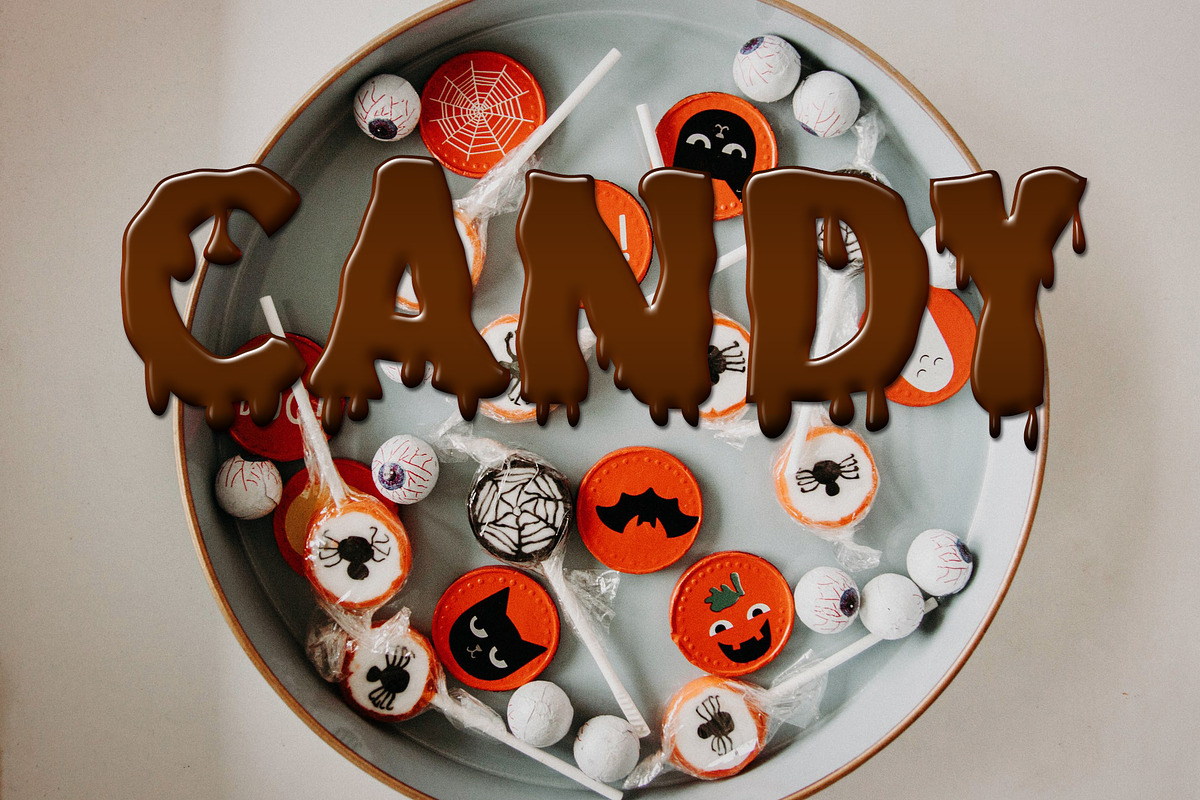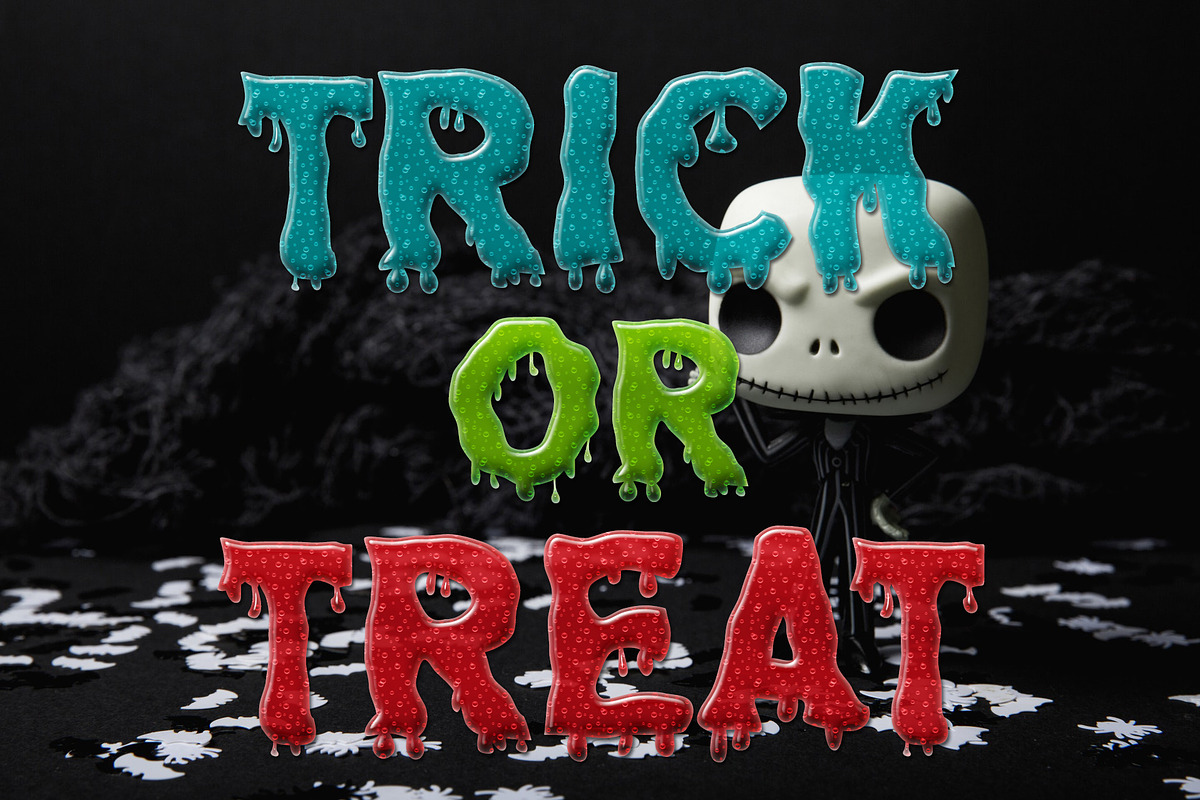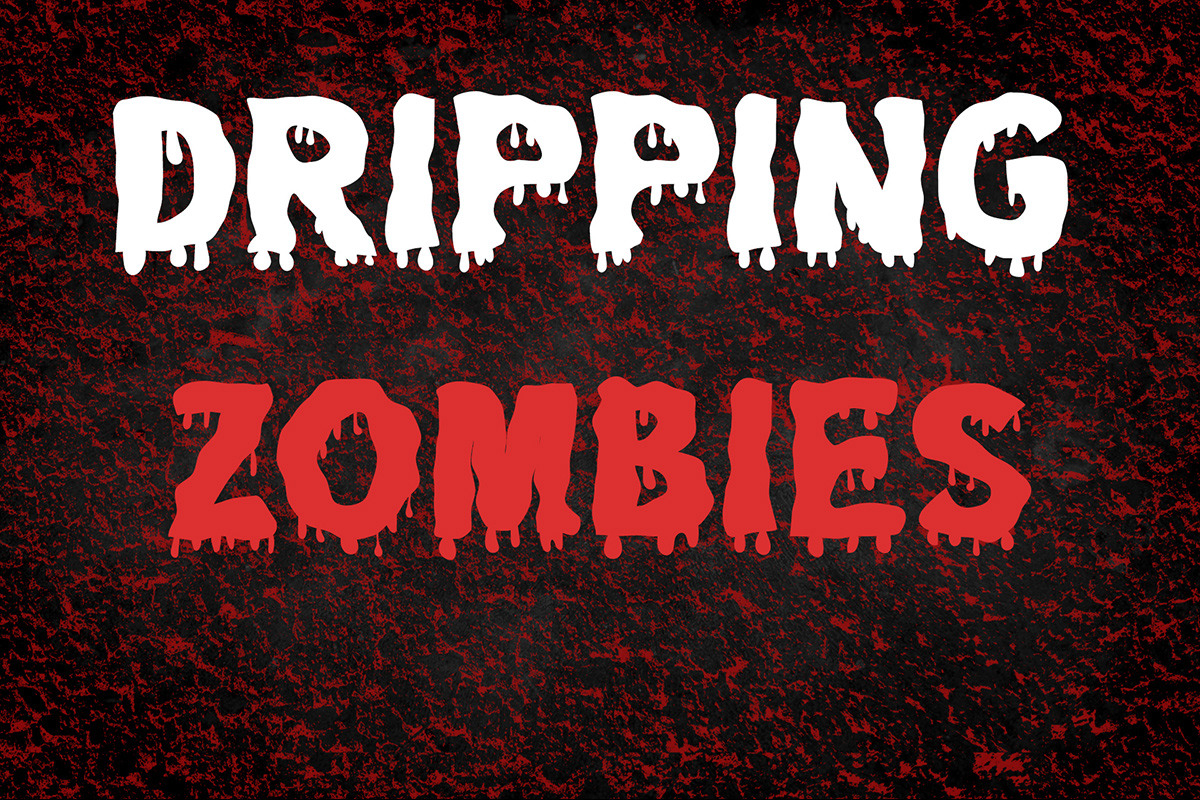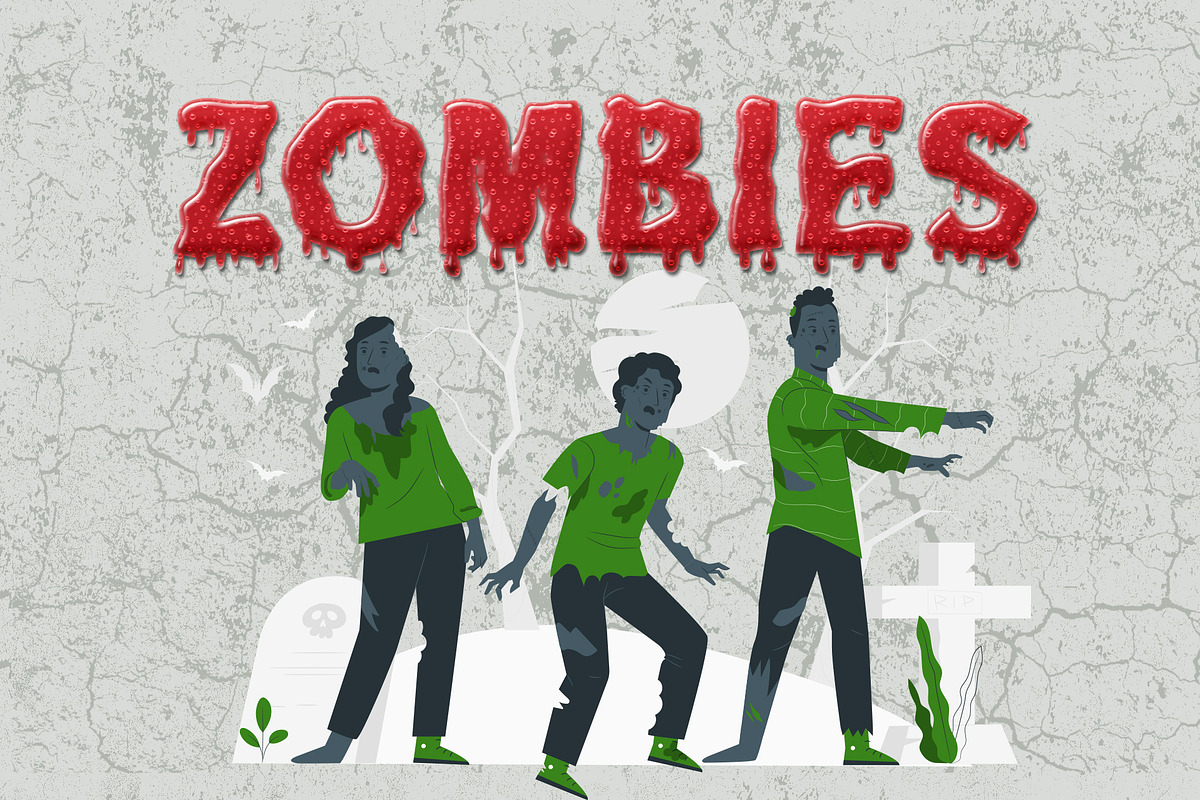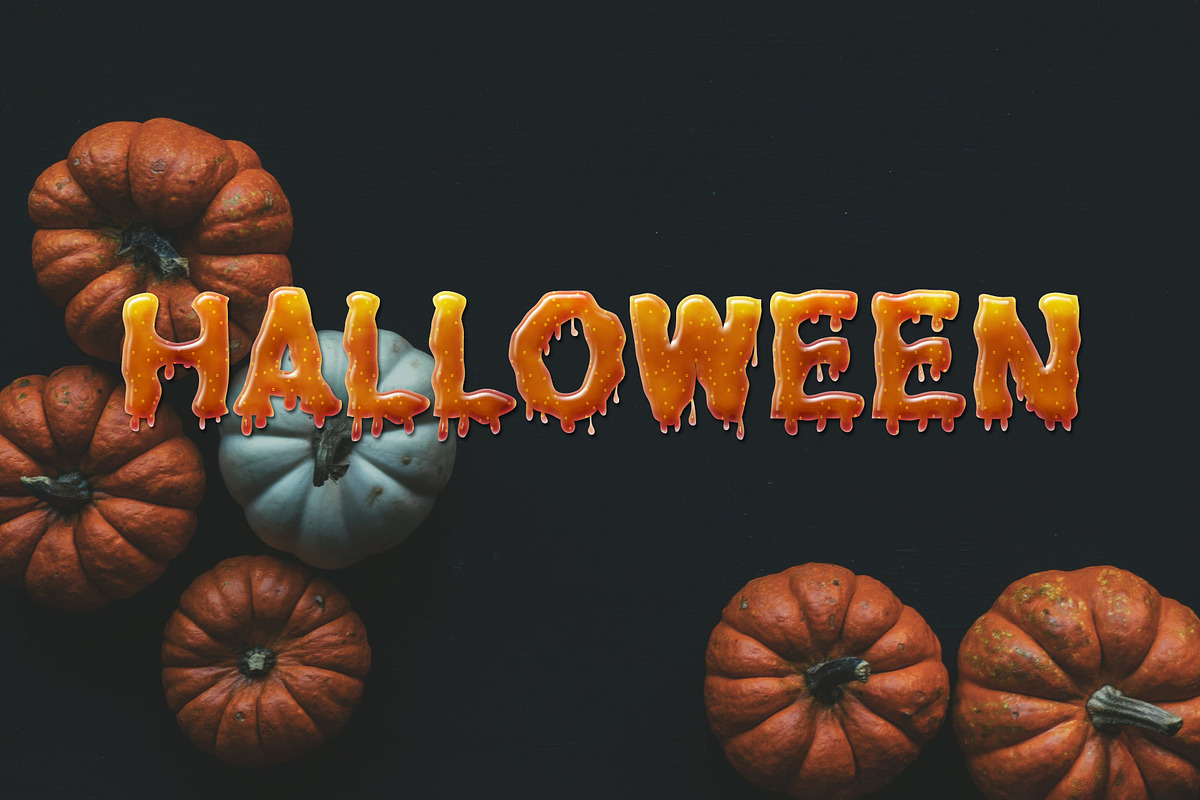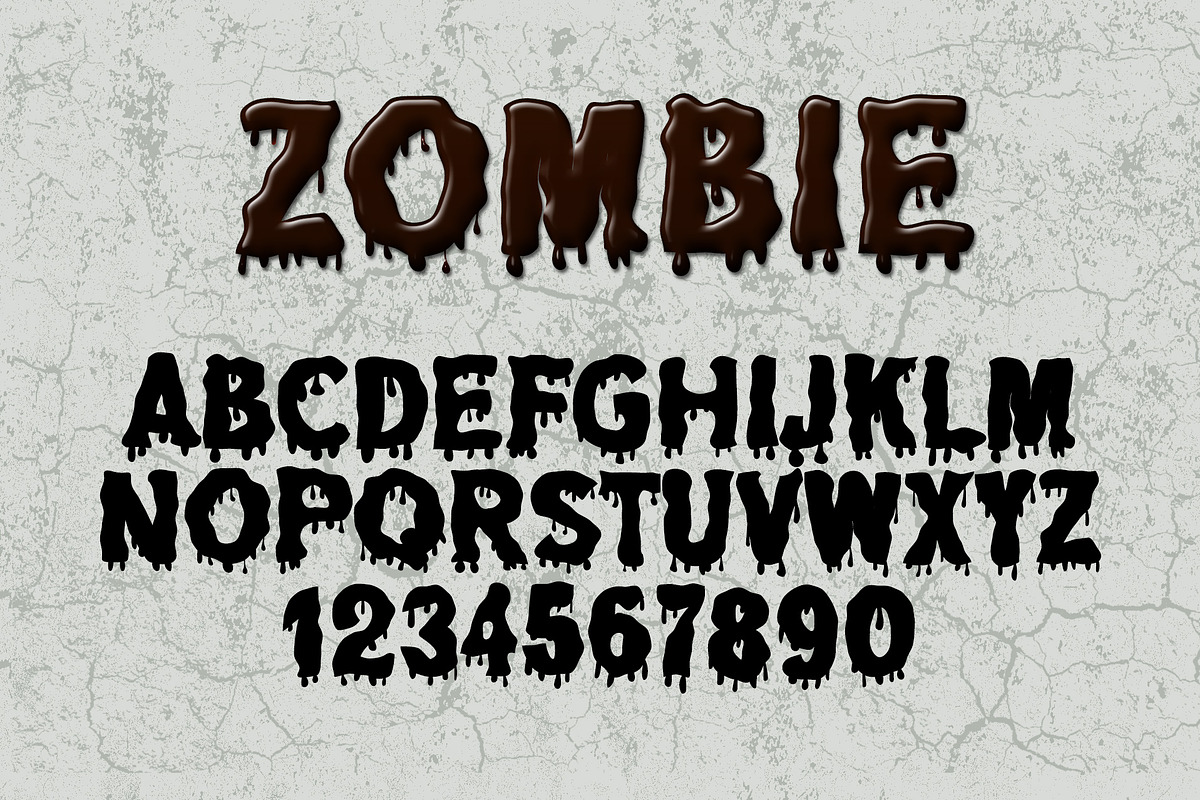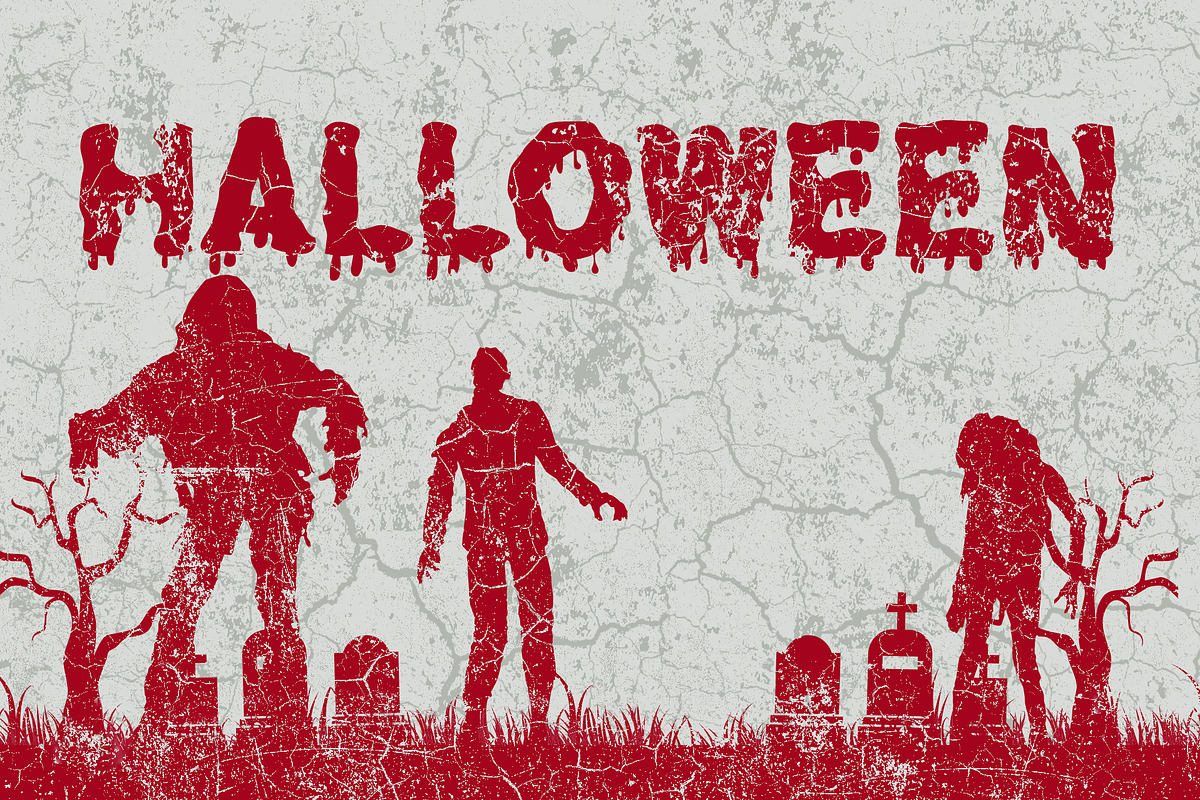
Dripping Zombie Halloween Font
Dripping Zombie Spooky Halloween font. Dripping Zombie is a spooky and bold display font. Get creative with its assertive and unique style and create everlasting Halloween designs!
Great for posters, logos, packaging, invitations, T-Shirts, and more.